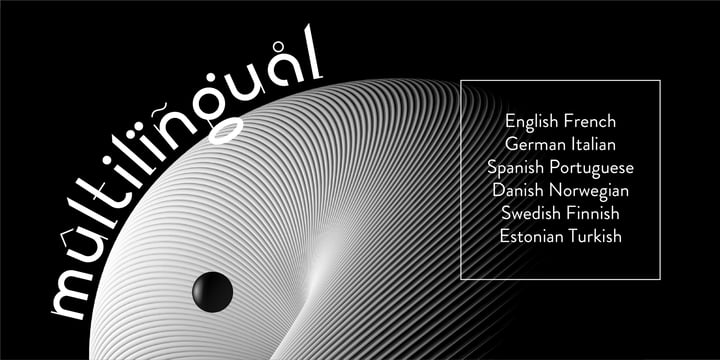
Geonica
Geonica by Struvictory.art
Geonica Font Family was designed by Viktor Strukouski, Viktoryia Strukouskaya and published by Struvictory.art. Geonica contains 1 styles. More about this family
Geonica is minimalistic geometric sans serif font with different line width. Geonica is suitable for the design on the theme of architecture, game industry, minimalism ect.
Geonica includes stylistic alternates for symbols: A, E, K, M, O, Q, T, V, W, g. There are also ligatures: AA, AJ, AM, LA, LM, MA, MM, OO, VV, fi, gg, gi, gj, oo, ri, rr, ti, vv, yy.
Designers: Viktor Strukouski, Viktoryia Strukouskaya
Publisher: Struvictory.art
Foundry: Struvictory.art